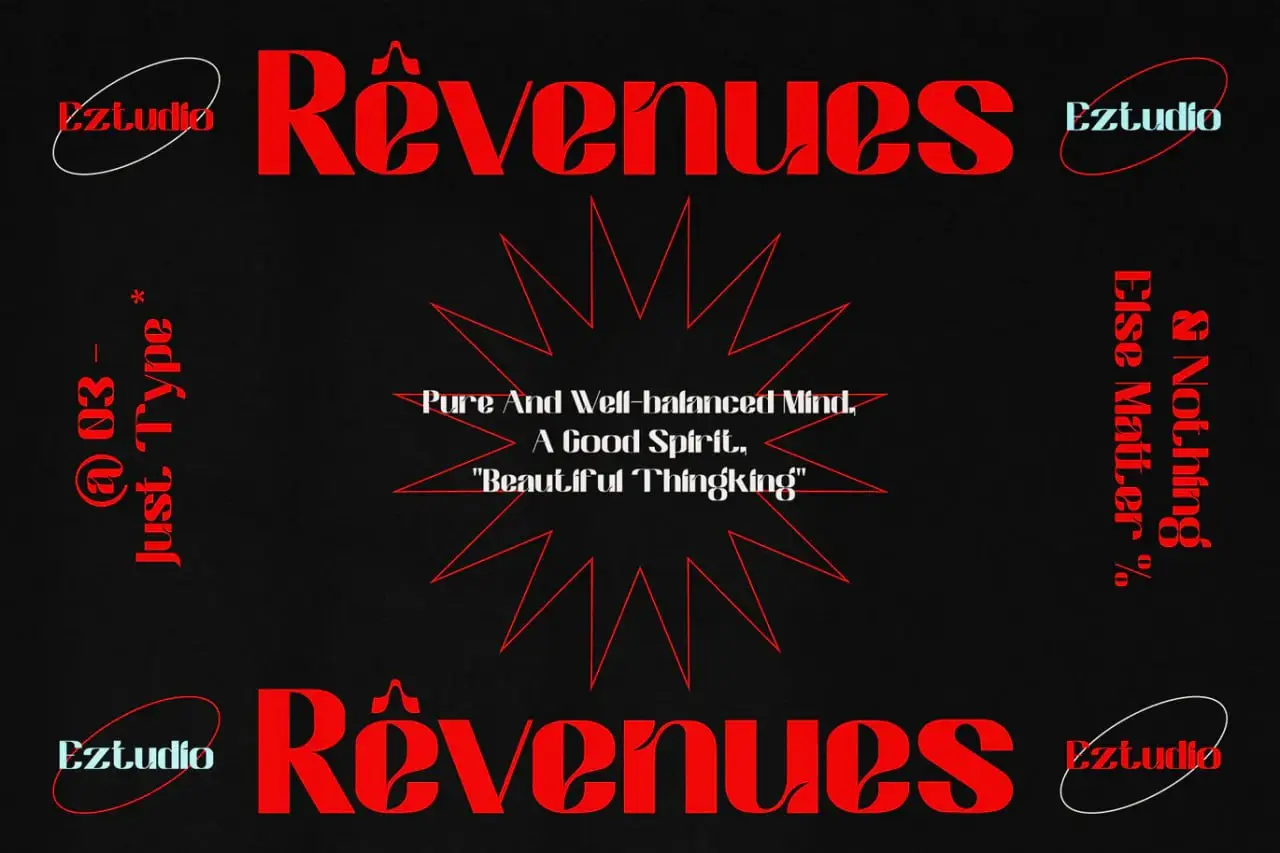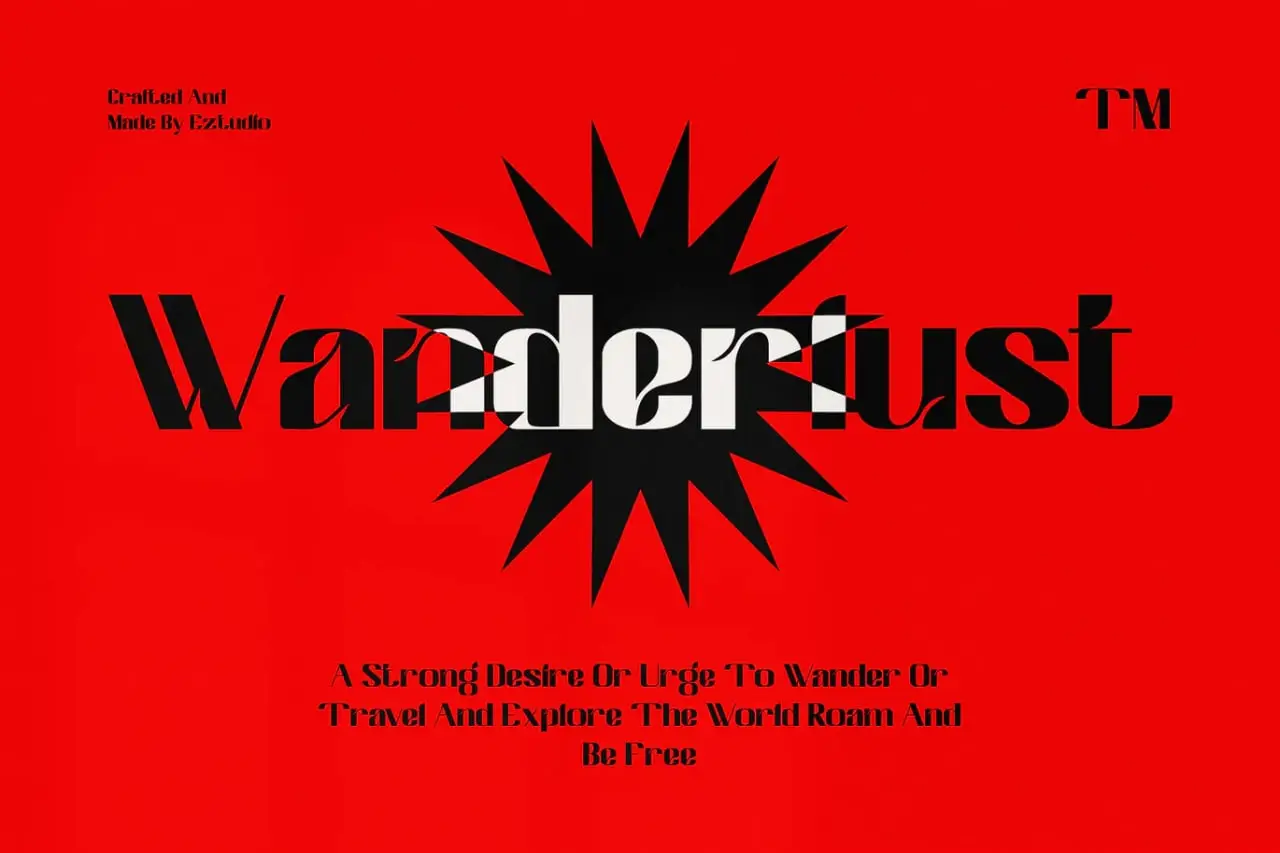
Ezstudio Unique Display Font Aldridge
Introducing the Aldridge font, a unique display typeface designed to make your projects stand out. With its bold and distinctive letterforms, Aldridge is perfect for creating eye-catching headlines, logos, and branding materials.
• Stylish and modern design
Ideal for branding, posters, web design, and print projects, Aldridge adds a unique flair to any creative endeavor.